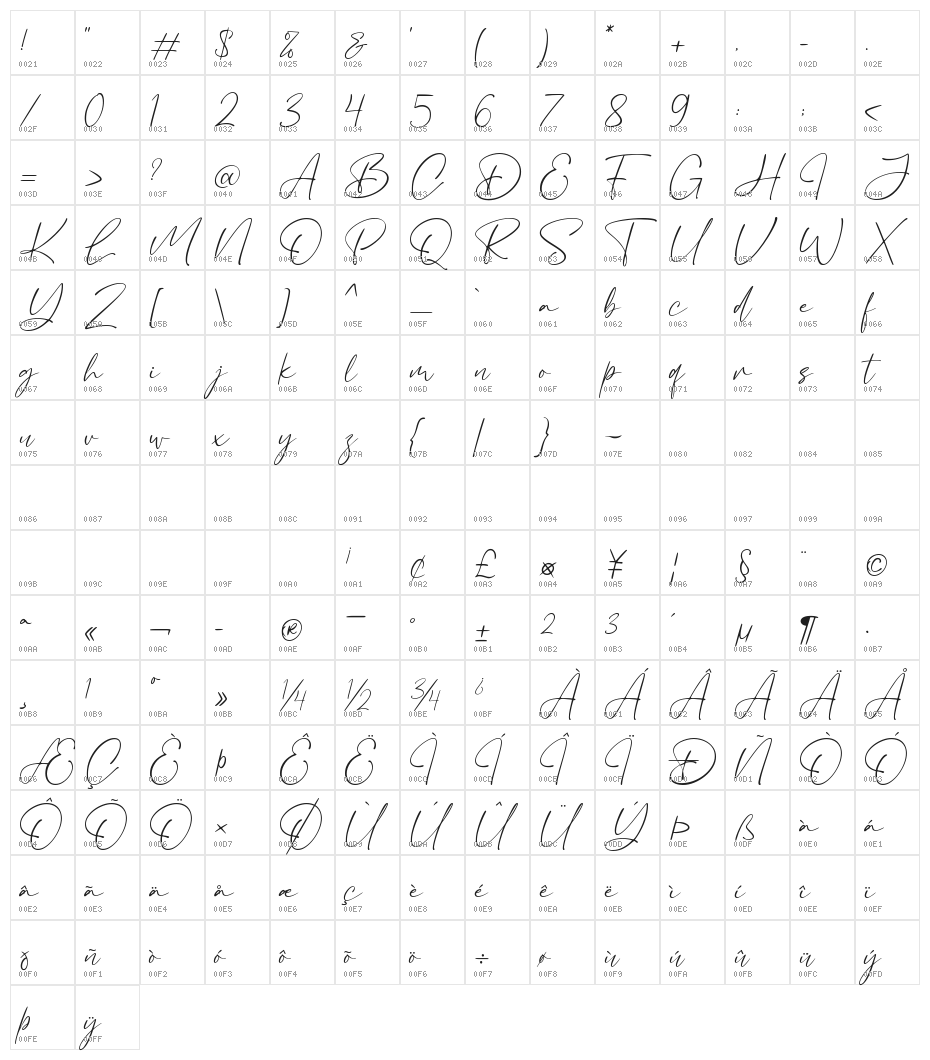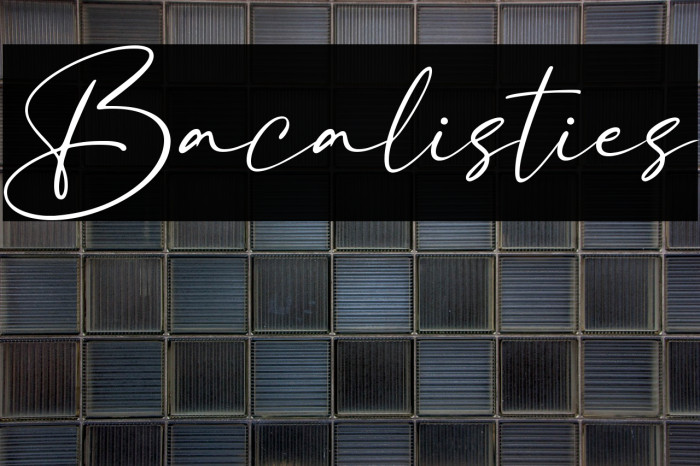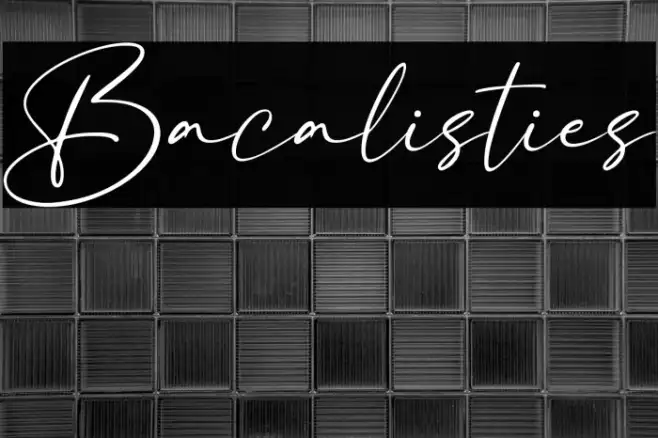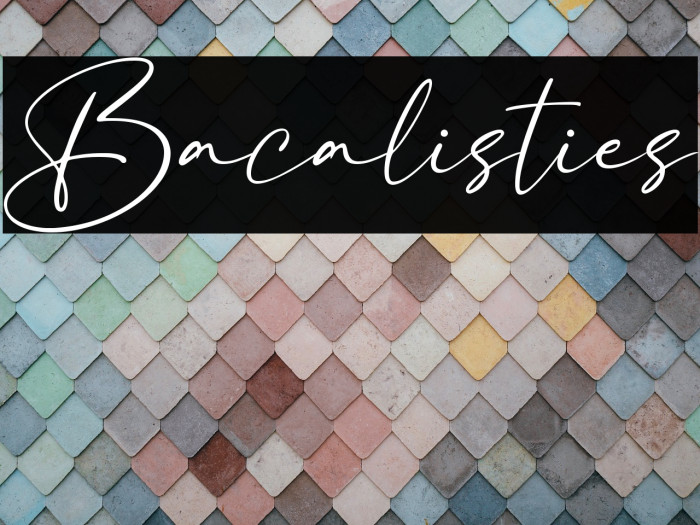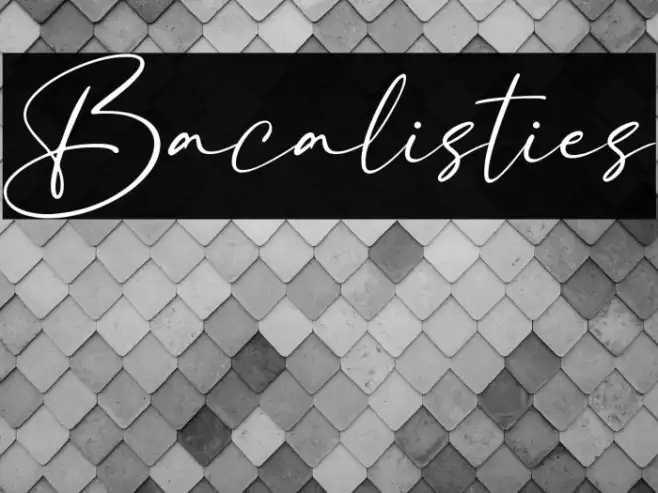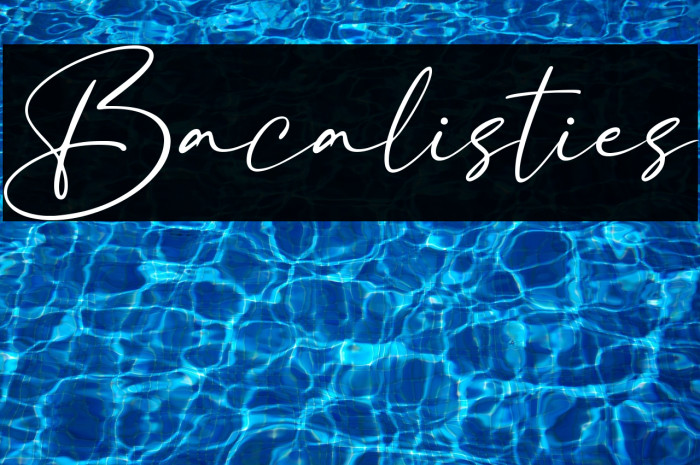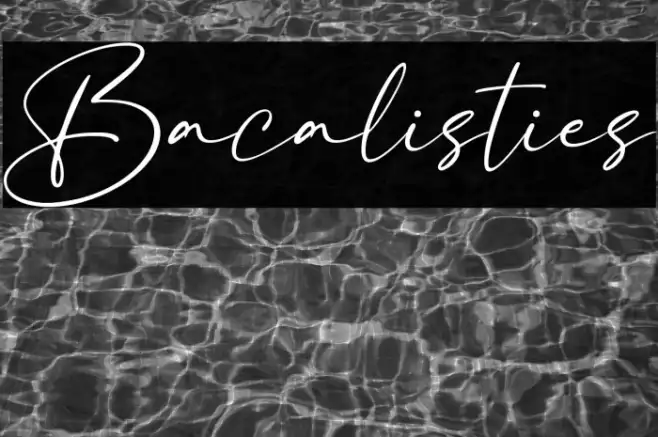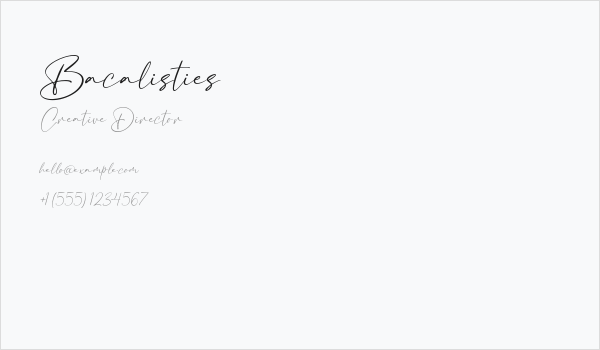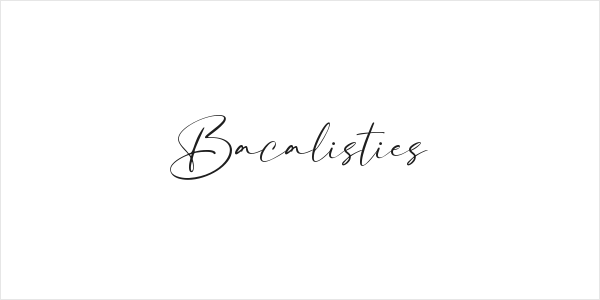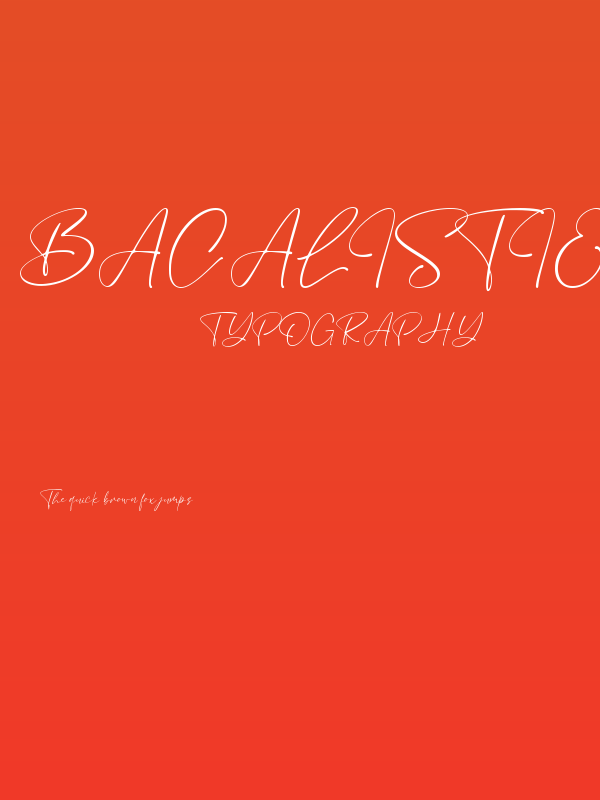
Bacalisties Font
Bacalisties Description
This font features a flowing, cursive style that mimics elegant handwriting. The letters are interconnected with smooth, sweeping lines, giving it a graceful and fluid appearance. The uppercase letters are slightly larger and more ornate, while the lowercase letters maintain a consistent, flowing script. The numbers and special characters follow the same cursive style, ensuring uniformity across all elements. This font exudes a sense of sophistication and charm, making it ideal for projects that require a personal touch.
Overall StyleElegant
Use CaseLogos, Invitations, Personal Branding
Proposed ProjectsIdeal for wedding invitations, greeting cards, personal branding, and elegant stationery.